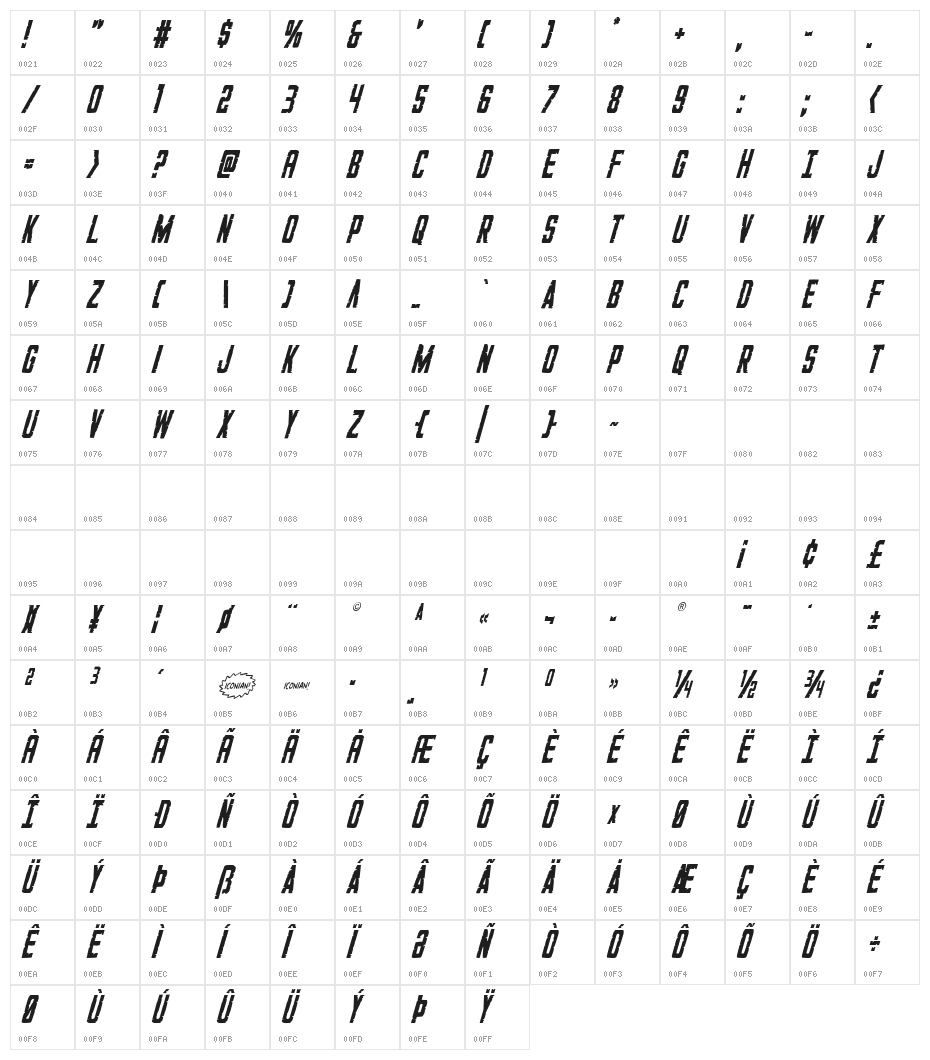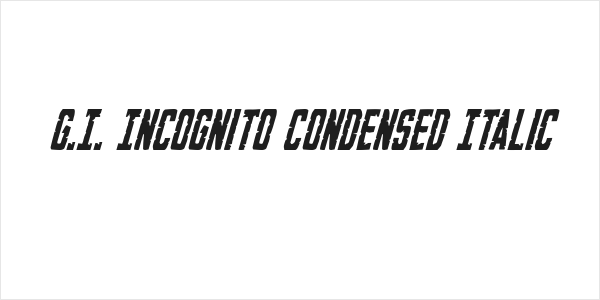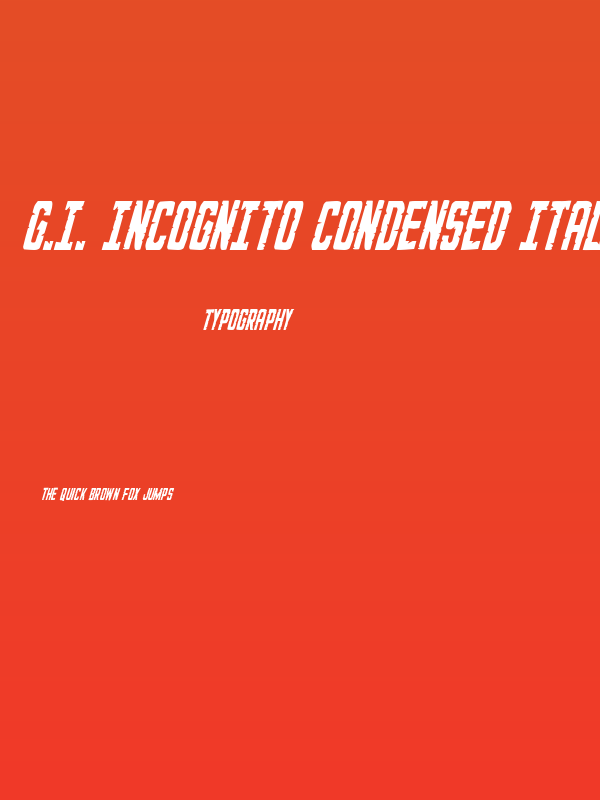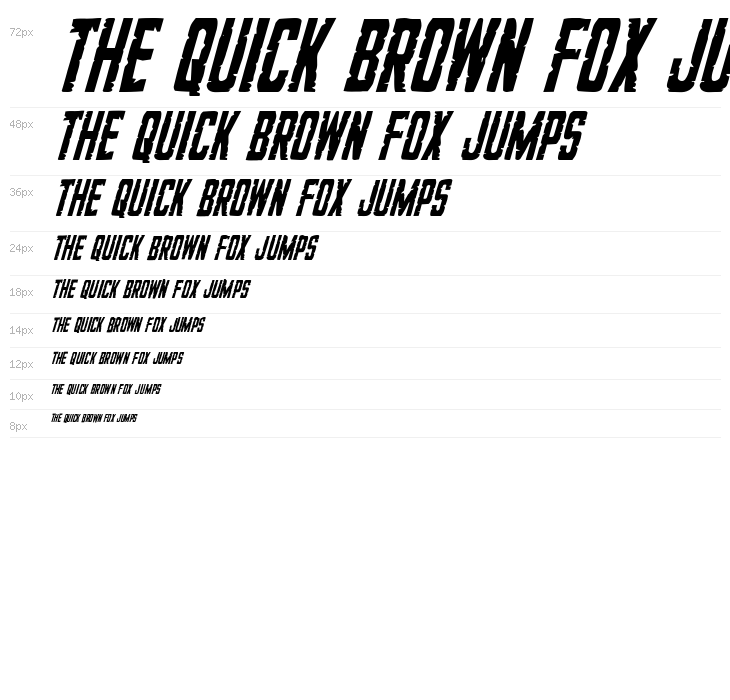
G.I. Incognito Condensed Italic Font
✎ Distorted Eroded
| Progetti proposti | Ideal for sports branding, action movie posters, dynamic advertisements, and edgy graphic designs. |